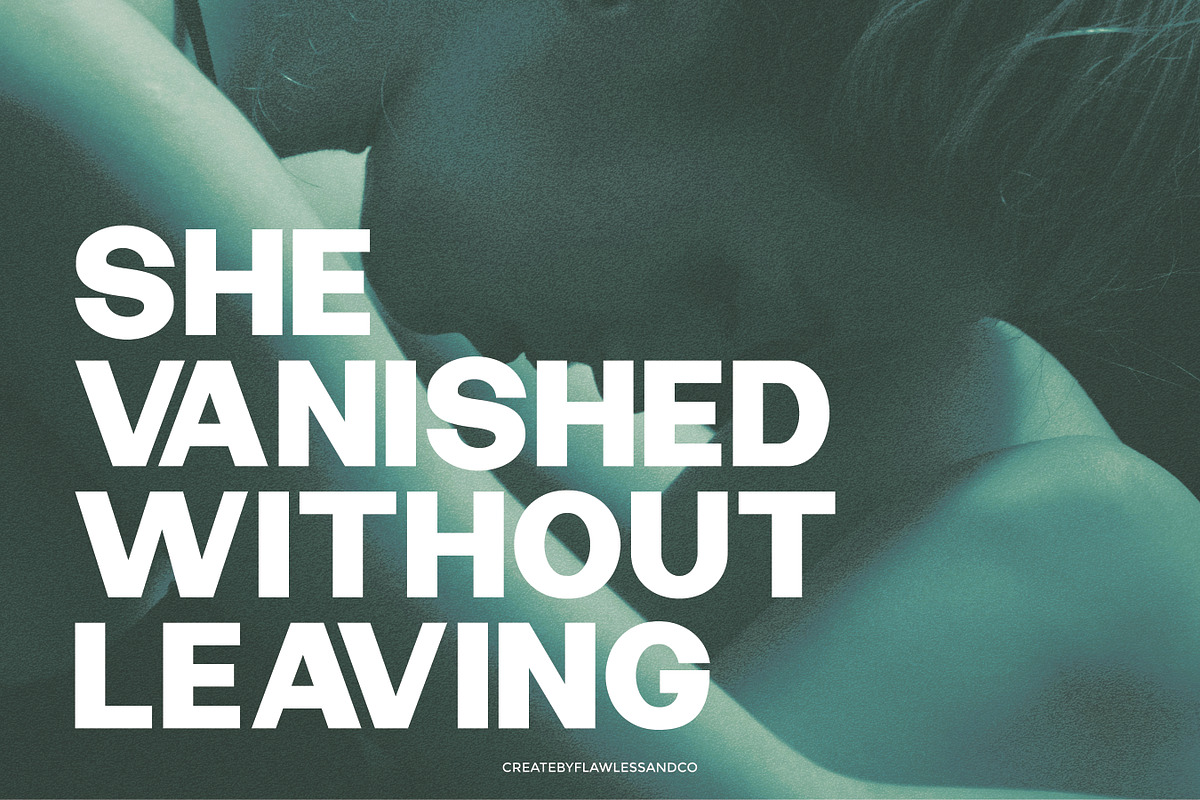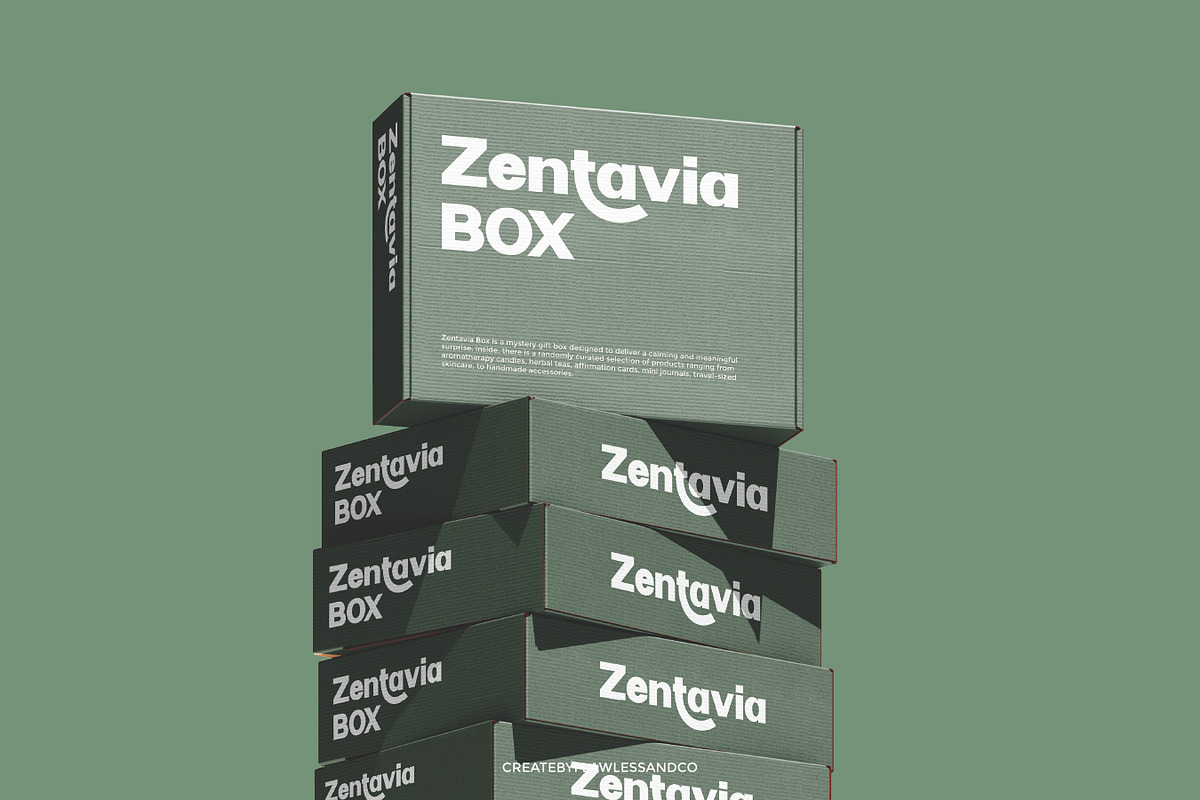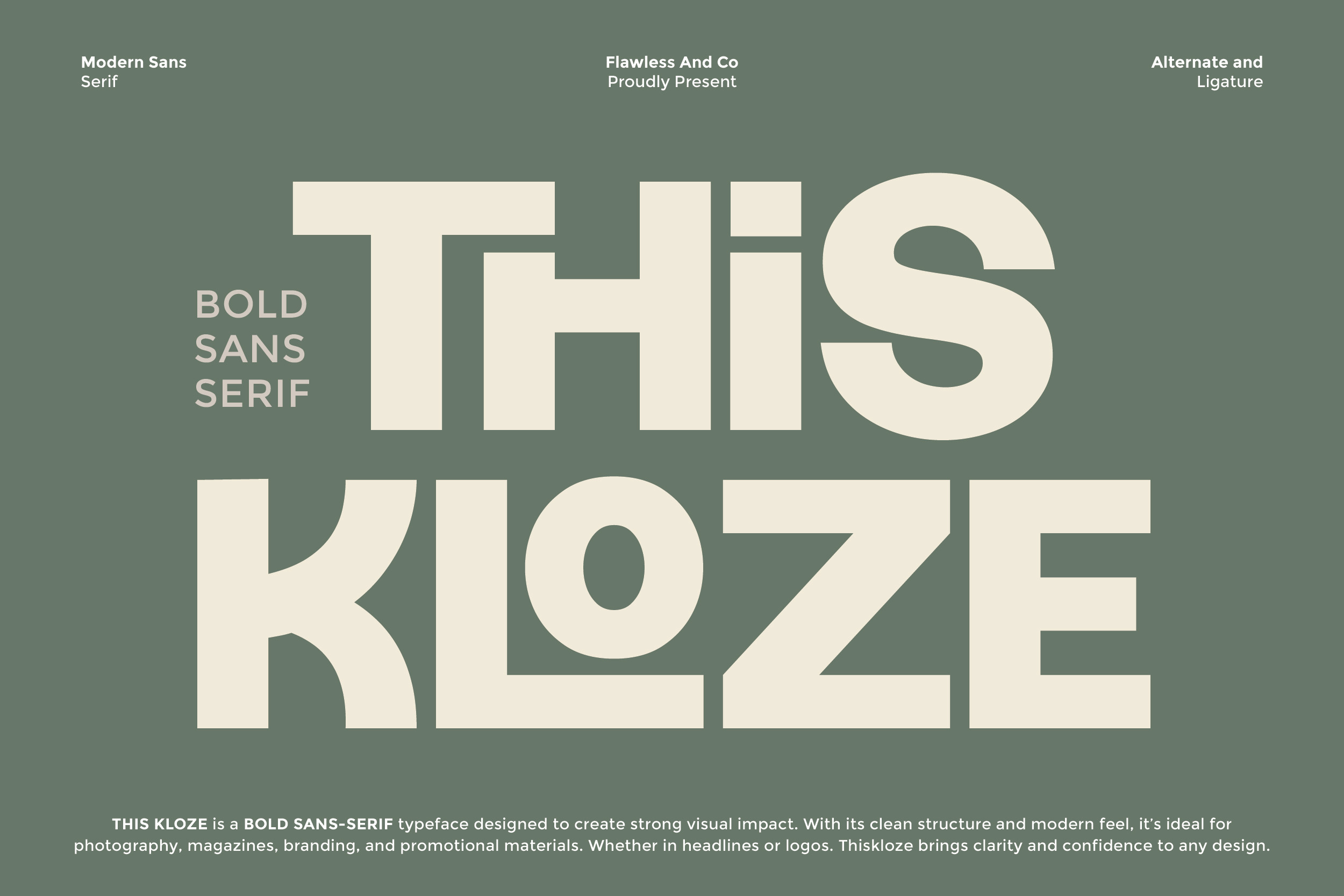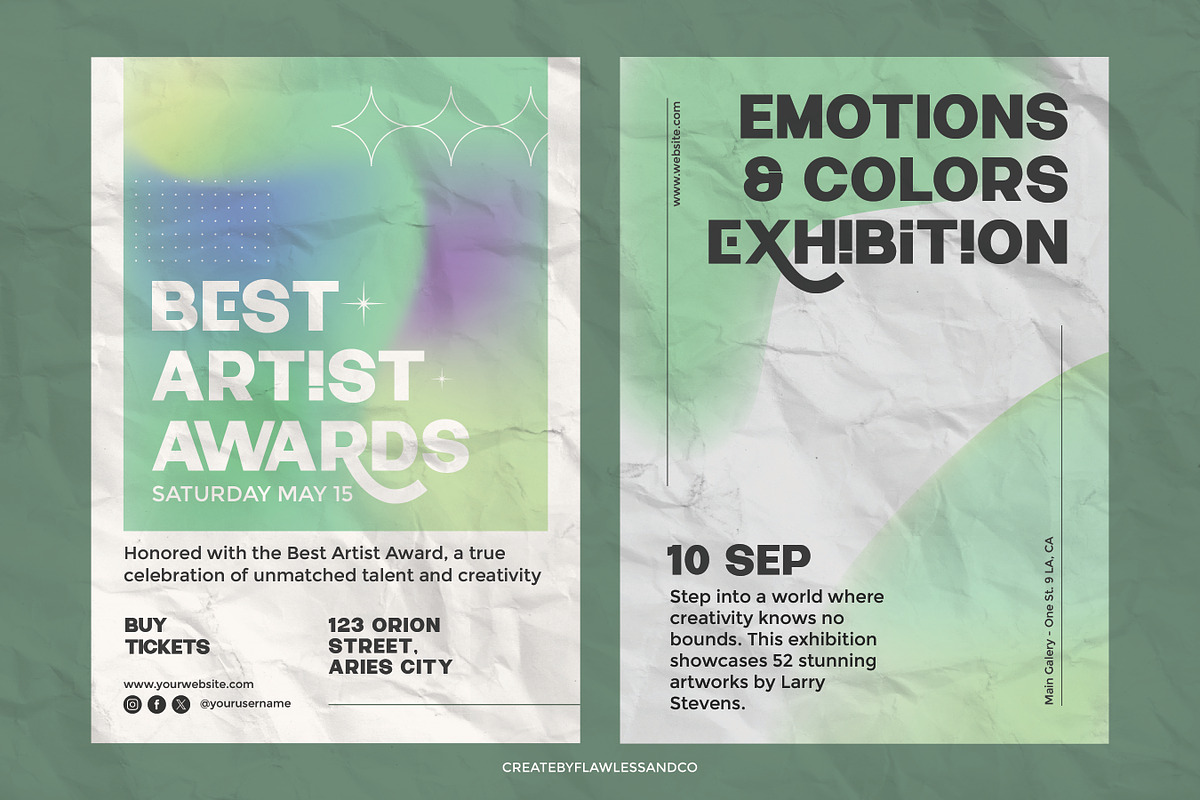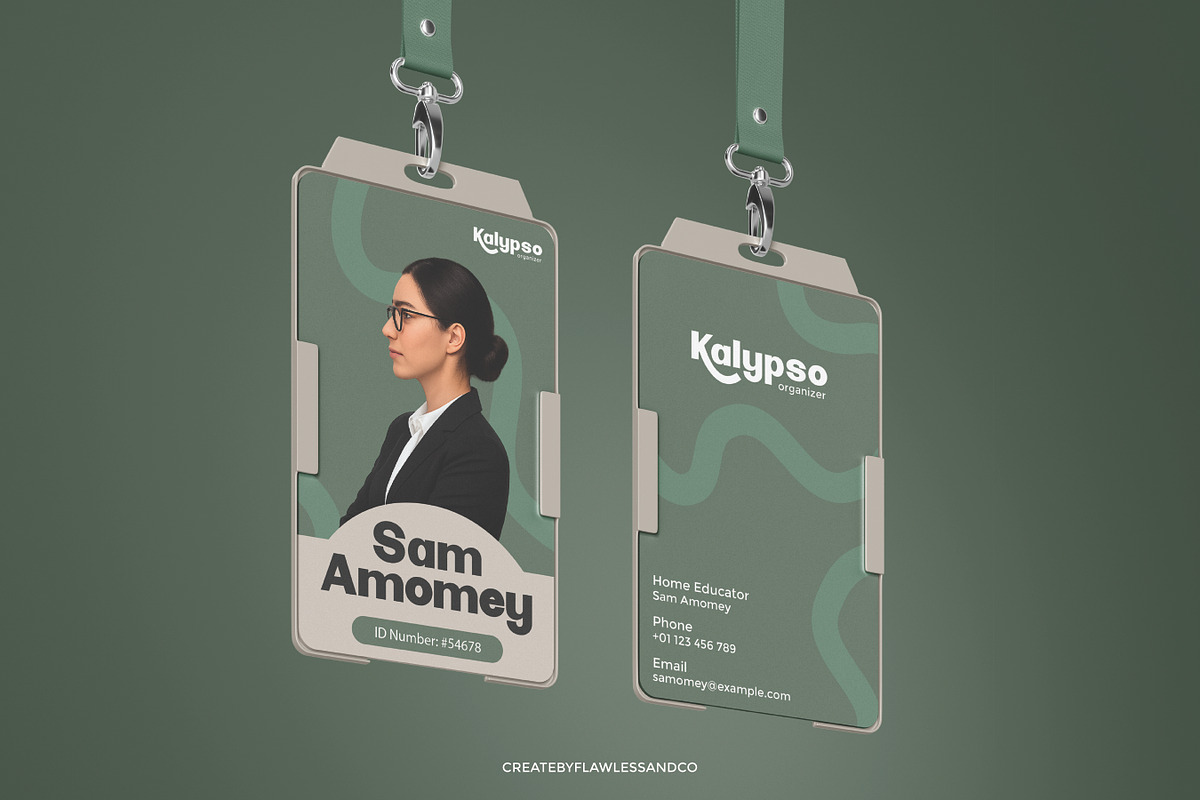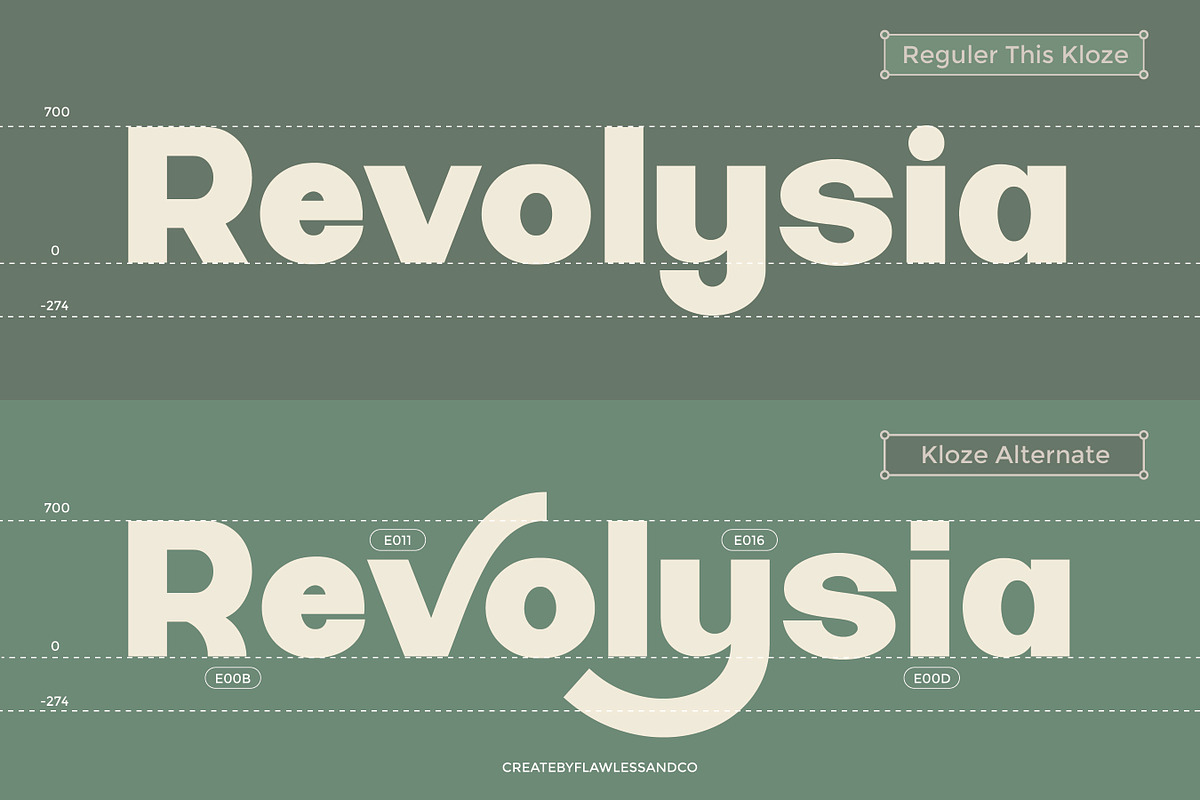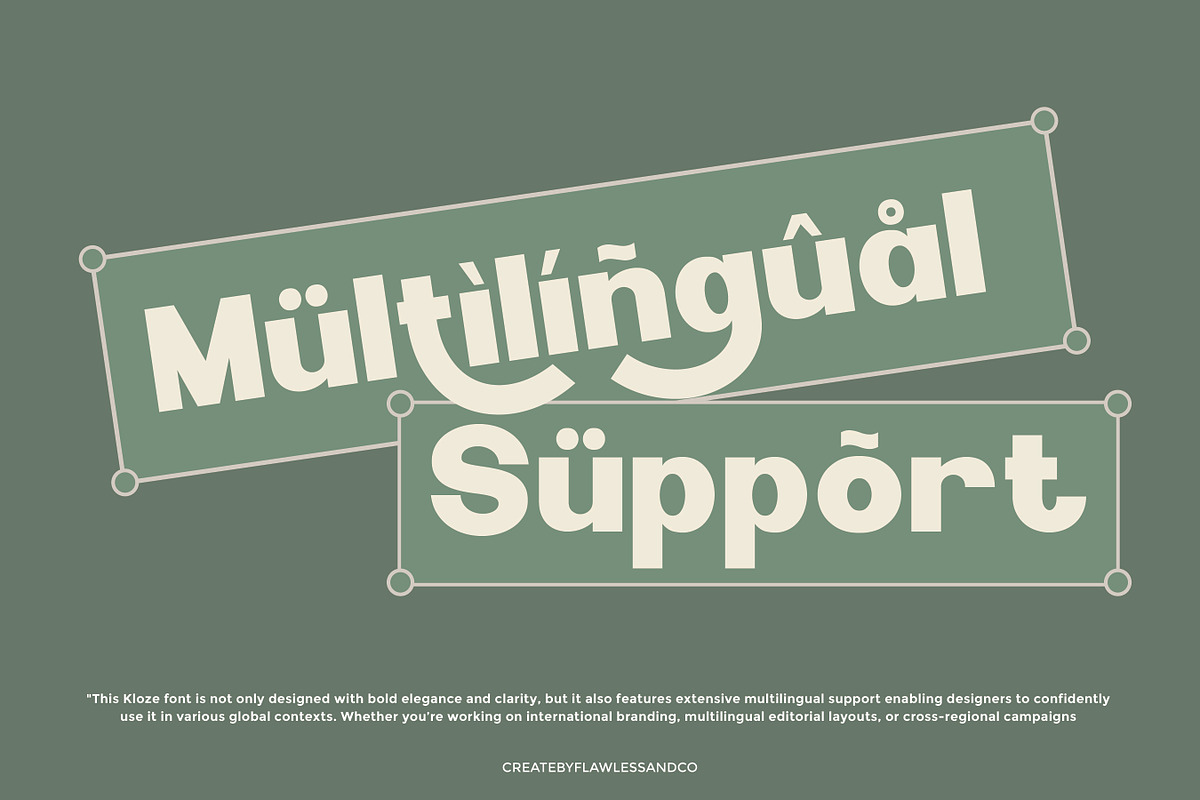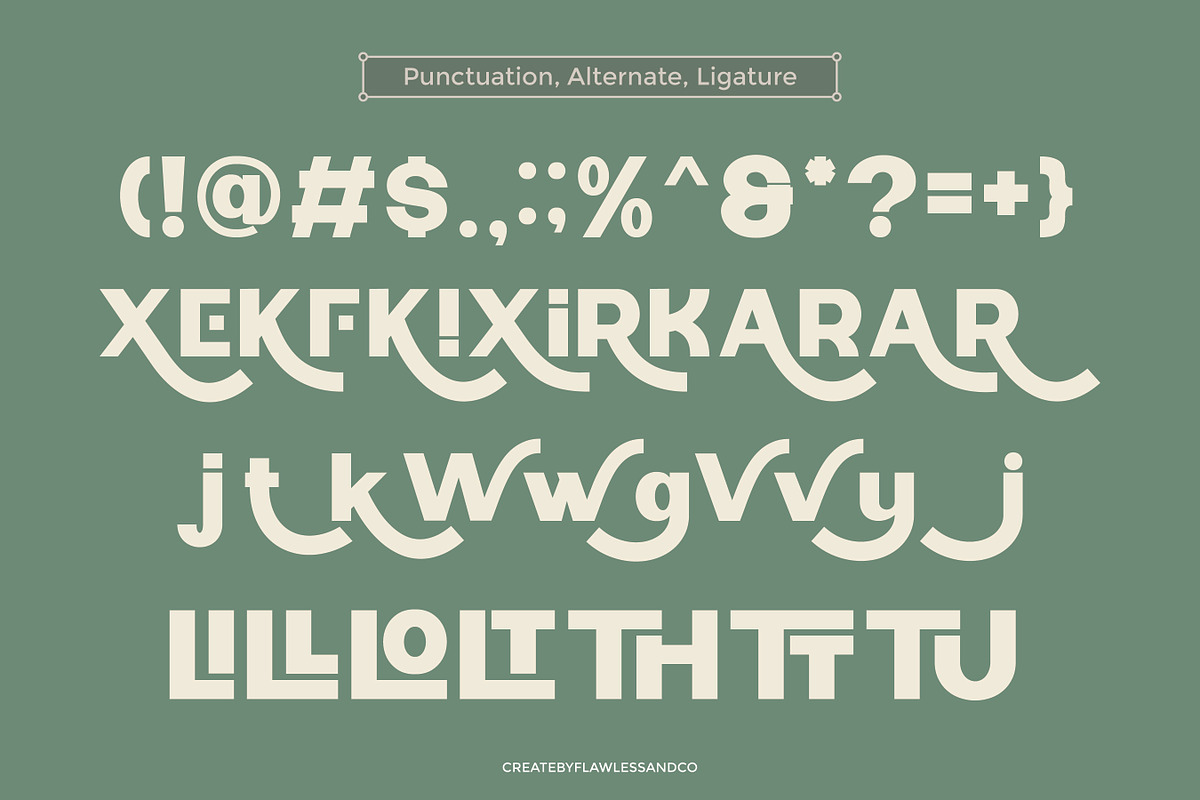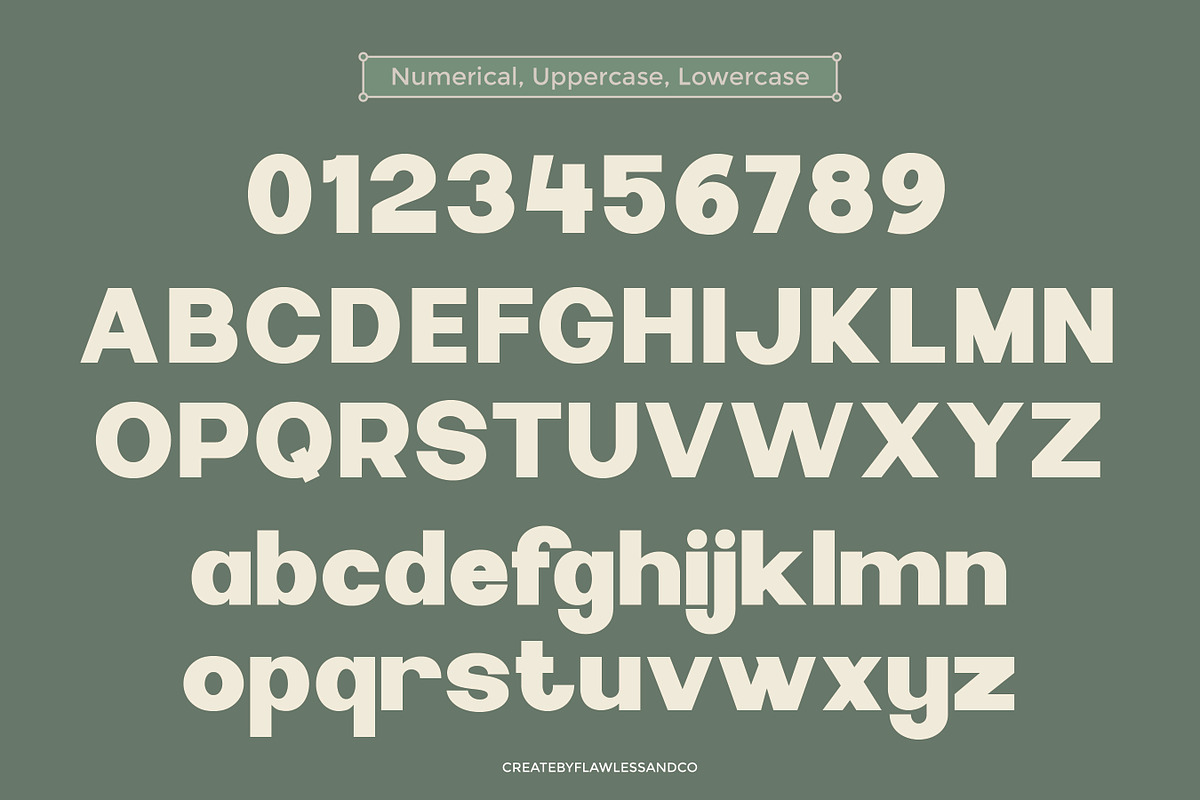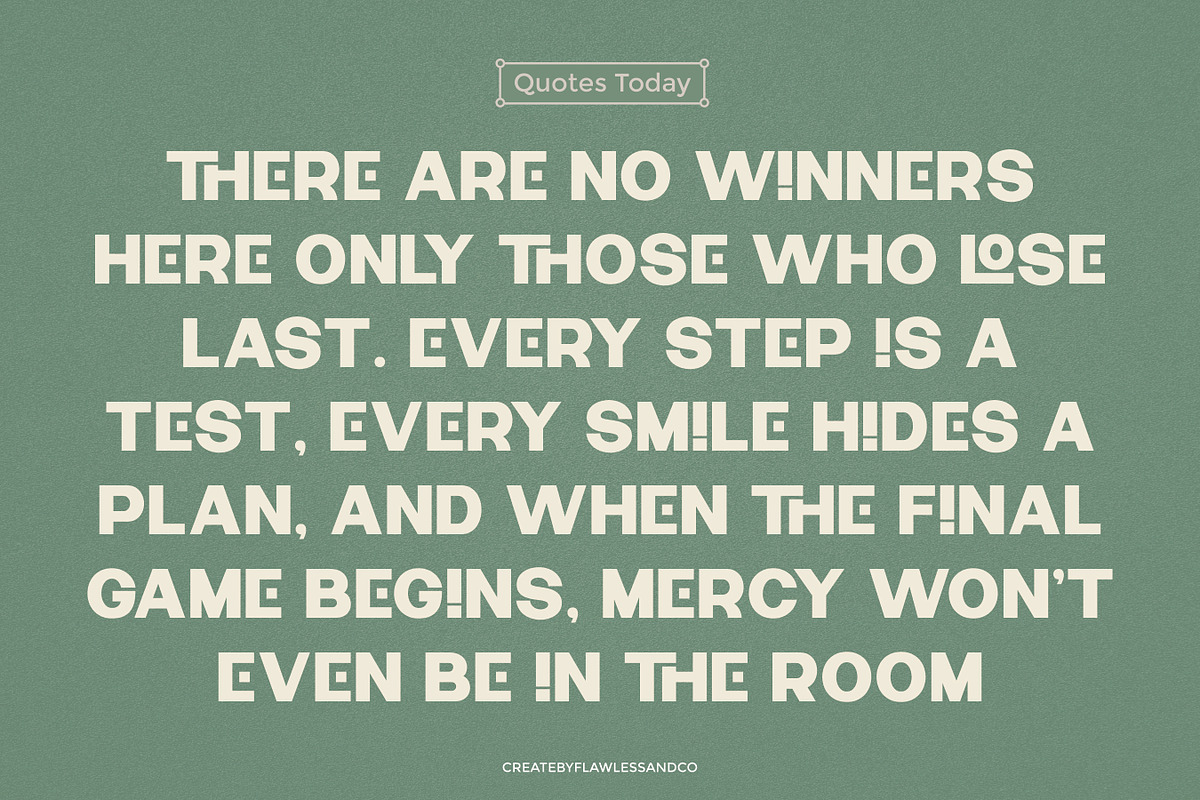
Thiskloze - Bold Sans Serif Font
THISKLOZE is a BOLD SANS-SERIF typeface designed to deliver maximum visual impact. With its strong, geometric shapes and modern design, it’s perfect for creating attention-grabbing headlines, powerful logos, and striking brand identities. Whether used in print, digital, or promotional materials, Thiskloze offers clarity, confidence, and a contemporary edge to every project.
Who Should Use Thiskloze?
Thiskloze is ideal for designers, brands, and creatives who want bold, modern typography that commands attention. It’s perfect for professionals seeking a clean yet powerful look in their visual communications.
A Must-Have Font for Brand and Logo Creators and Designers
Thiskloze is a must-have for anyone crafting standout brand identities and professional logos. Its bold, modern style ensures your designs are memorable, impactful, and versatile across various media.
Why Choose Thiskloze for Brand, Logo, Wedding, and Beauty Projects?
Thiskloze combines modern elegance with bold character, making it perfect for projects that demand style and sophistication. Its refined letterforms work beautifully for high-end branding, timeless wedding stationery, and luxurious beauty product designs—ensuring your visuals convey both professionalism and charm.
Suitable For:
- Brand identities and professional logo design
- Wedding invitations and elegant stationery
- Beauty, fashion, and lifestyle branding
- Editorial layouts and magazine covers
- Product packaging for premium goods
- Social media graphics and marketing content